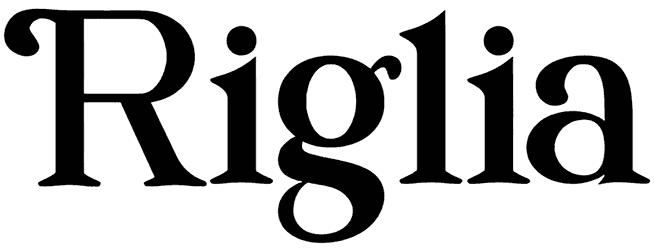
Riglia Font
Using the favor of this Riglia serif font, share the joy of exhibiting impressive and professional designs from official documents, main text, headers, and posters, to apps, product packaging, or apparel. This font upholds a reading look of comfy and stellar quality.
As well, its clean, standard attributes let it stand reliably in front of your audience’s eyes. Give it a try and make a friendly, adorable, and gorgeous output.